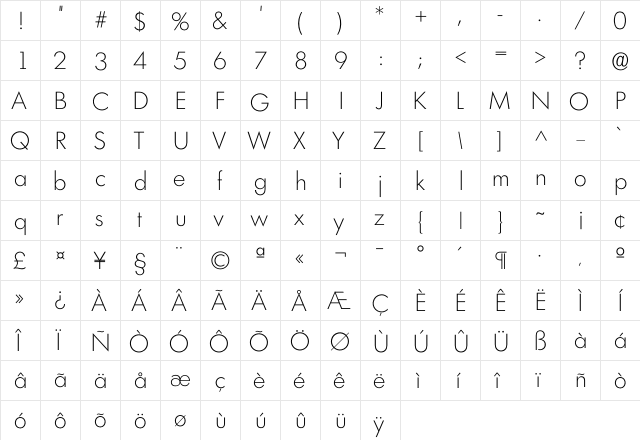
Limeri Xlight
Design Context for Limeri Typeface
Limeri offers clean, dependable letterforms without strong stylistic allegiance, making it a practical choice for designers who need flexibility. The delicate stroke weight brings airiness and refinement to layouts.